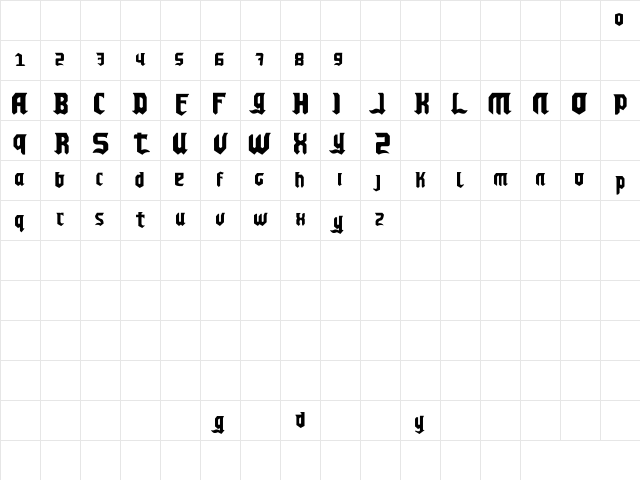
Chello Playah Original Free Font
Chello Playah Original
Style: Original
Foundry: Typoware
Designer: Jordie van Rijn
Design Context for Chello Playah
Chello Playah is a composed and adaptable typeface that performs quietly and consistently across a wide range of design contexts.